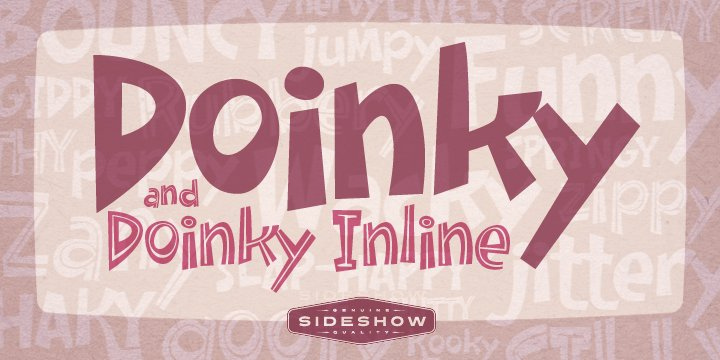
Doinky Font
Doinky Font is perfect for playful branding projects, quirky logo design, fun editorial layouts, children's entertainment materials, toy packaging design, gaming interfaces, comic book lettering, social media content, and creative advertising campaigns. This delightful typeface works exceptionally well in both digital applications and print media where humor and entertainment value are primary objectives.
What makes Doinky Font so exciting is its bouncy, animated character that instantly brings joy and energy to any design project. The font features whimsical letterforms with exaggerated curves, playful proportions, and dynamic baseline variations that create a sense of movement and fun. Its cartoon-inspired aesthetic and cheerful personality make it ideal for brands targeting younger audiences or any project seeking to communicate happiness, creativity, and lighthearted entertainment while maintaining clear readability.
The Doinky Font family includes multiple playful variations from regular to extra bold weights, along with alternate characters and decorative elements that enhance its comedic appeal. Each style within the family offers comprehensive character support including numbers, punctuation marks, and special symbols designed to maintain the font's entertaining spirit across all applications.
This extraordinary typeface represents the perfect fusion of entertainment design and practical functionality. Whether you're developing children's brand identities, creating gaming user interfaces, or designing humorous marketing materials, Doinky Font Free Download provides the infectious energy and versatility needed to capture attention and create memorable experiences. The font's playful nature makes it particularly effective for entertainment companies, toy manufacturers, children's products, and creative agencies.
The carefully balanced bounce and rhythm in Doinky Font create visual excitement while ensuring messages remain clear and accessible. Its distinctive character makes it perfect for headlines, titles, and short text applications where its full personality can shine, bringing smiles and engagement to audiences across various demographic groups and creative contexts.